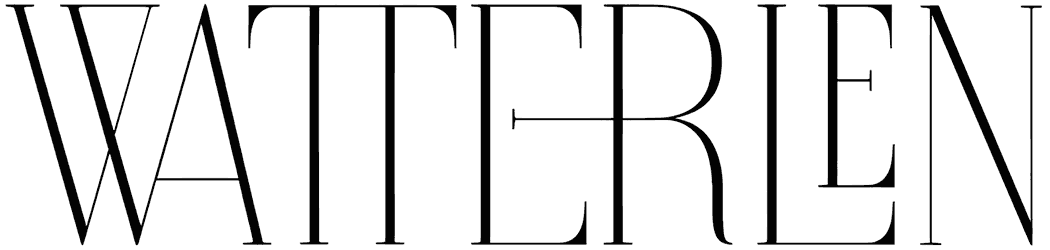
Watterlen Font
There is no need to be worried about finding a suitable serif font for designing prestigious graphic content, while you have access to a limitless number of artistic products on the RB archive, including Watterlen.
This all-caps masterpiece carries a sense of formality, seriousness, confidence, or trustworthiness, and lets your creative ideas shine. We strongly recommend you include this ligature font in your posters, web page templates, magazines, or book covers to level up the visibility of your work.